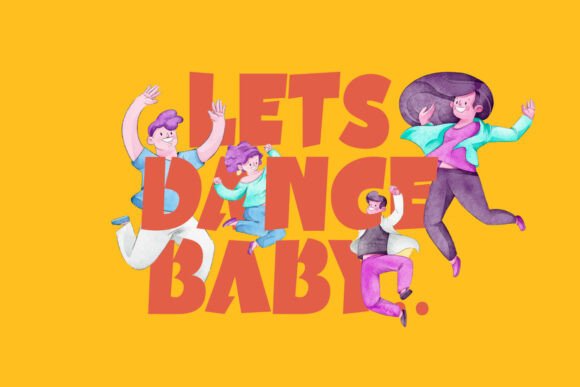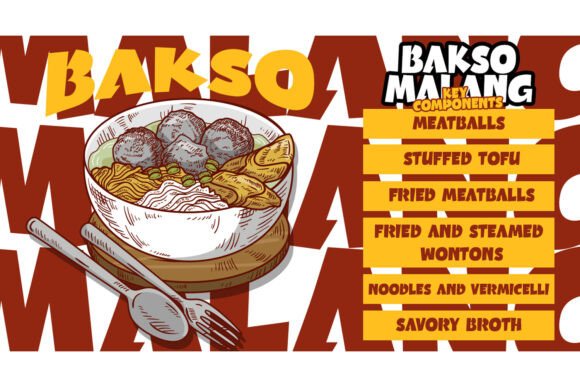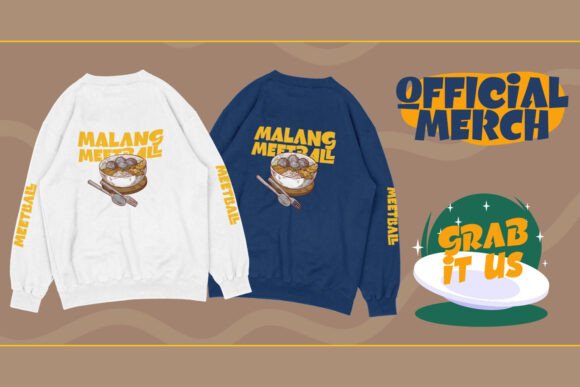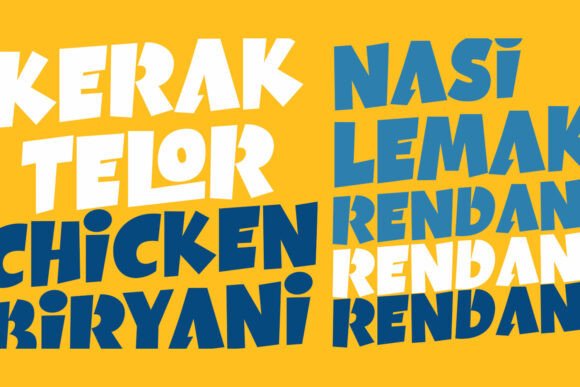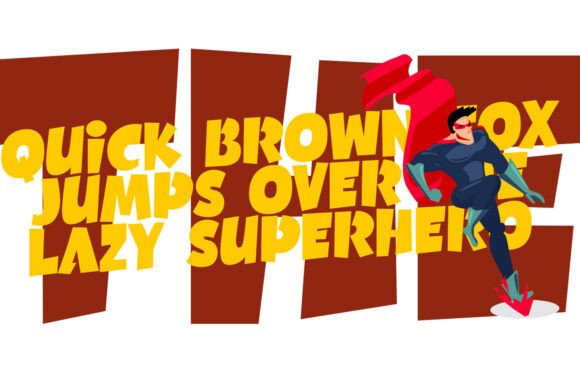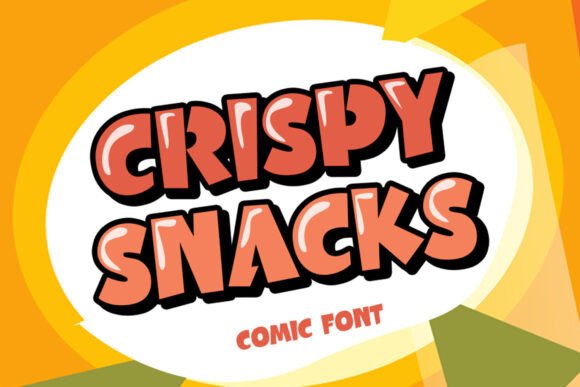
Crispy Snacks Font: Add a Playful Touch to Your Designs
Are you looking for a font that can add a burst of excitement to your designs? Look no further than the Crispy Snacks font! This fun and bold comic-style font is perfect for designers and crafters who want to add a playful and energetic touch to their projects. With its chunky, crispy edges, Crispy Snacks font gives a lively and eye-catching feel that’s ideal for snack packaging, posters, or any project that needs a dash of fun.
What is Crispy Snacks Font?
Crispy Snacks font is a unique and creative typeface that’s designed to bring a smile to your face. Its chunky, hand-drawn style gives it a fun and playful feel that’s perfect for a wide range of design projects. Whether you’re designing a label for a snack food, creating a poster for a kids’ event, or crafting a social media graphic, Crispy Snacks font is sure to add a touch of whimsy and excitement.
Key Features of Crispy Snacks Font
• Fun and playful style: Crispy Snacks font has a bold, comic-style design that’s sure to grab attention.
• Chunky, crispy edges: The font’s unique edges give it a lively and eye-catching feel.
• Perfect for snack packaging: The font’s playful style makes it ideal for labeling snack foods, candies, and other treats.
• Great for posters and flyers: Add a burst of excitement to your posters and flyers with this fun and energetic font.
• Easy to read: Despite its playful style, Crispy Snacks font is easy to read, even in large or small sizes.
Uses for Crispy Snacks Font
Crispy Snacks font is a versatile typeface that can be used in a wide range of design projects. Here are some ideas to get you started:
• Snack packaging: Add a playful touch to your snack food labels with Crispy Snacks font.
• Posters and flyers: Use Crispy Snacks font to create eye-catching posters and flyers for kids’ events, sales, or promotions.
• Social media graphics: Add a burst of excitement to your social media graphics with Crispy Snacks font.
• Crafting projects: Use Crispy Snacks font to add a personal touch to your crafting projects, such as scrapbooking, card-making, or DIY signs.
Tips for Using Crispy Snacks Font
Here are some tips for getting the most out of Crispy Snacks font:
• Use it sparingly: Crispy Snacks font is a bold and playful font, so use it sparingly to avoid overwhelming your design.
• Pair it with a simple font: Pair Crispy Snacks font with a simple font to create contrast and add visual interest.
• Experiment with colors: Crispy Snacks font looks great in bright, bold colors, so don’t be afraid to experiment and find the perfect hue for your design.
Crispy Snacks font is a fun and bold comic-style font that’s perfect for adding a playful and energetic touch to your designs. With its chunky, crispy edges and lively feel, it’s ideal for snack packaging, posters, or any project that needs a burst of excitement. Whether you’re a designer or crafter, Crispy Snacks font is sure to become a favorite in your collection. So why wait? Download Crispy Snacks font today and start adding a touch of whimsy and fun to your designs!